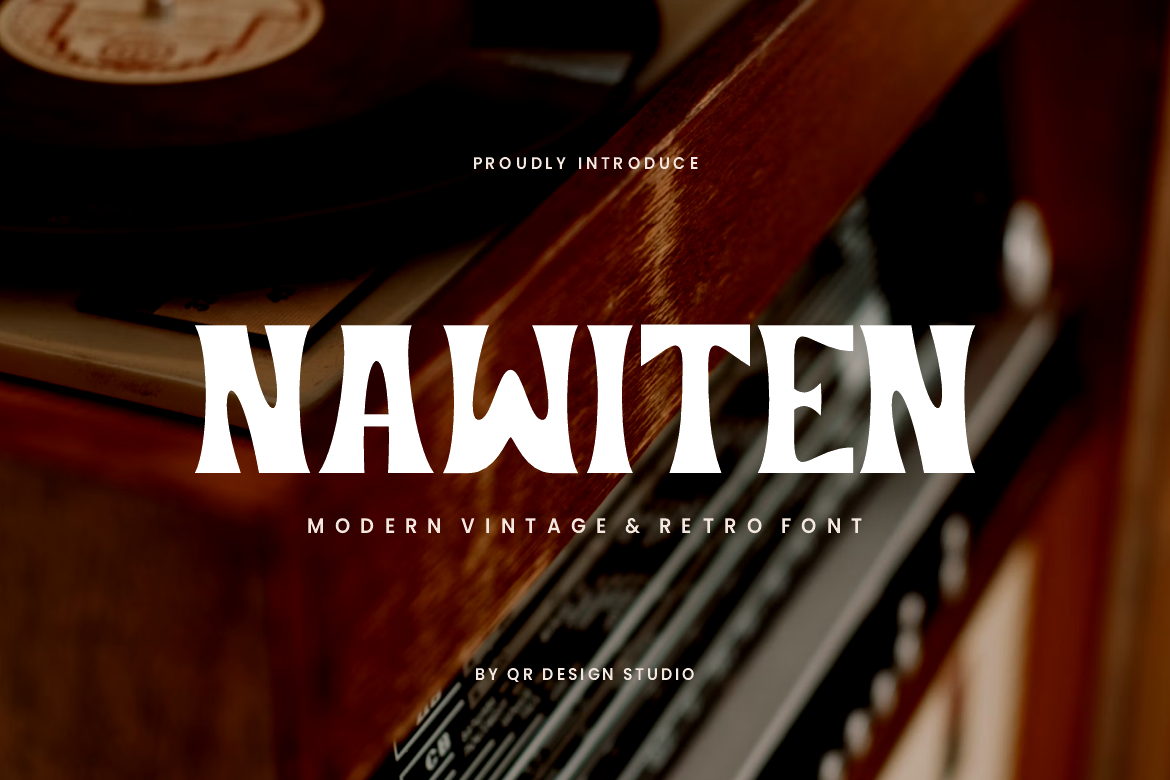
Nawiten - Vintage & Retro Font
Nawiten Font is a serif and authentic display font. The font is suitable for any branding project like vintage, retro, poster, logo, sport, and many more. Outstanding in a wide range of contexts.